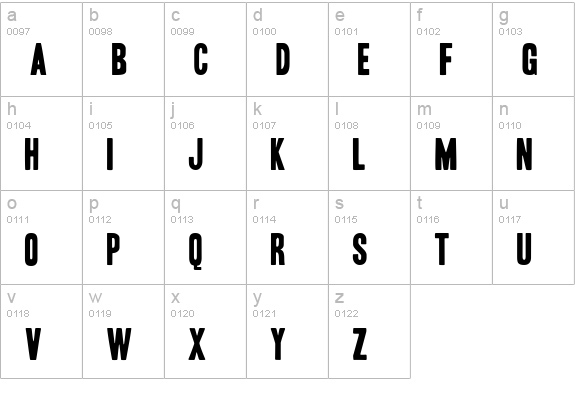
Headline One HPLHS Font Details
Introducing Headline One HPLHS font, a captivating and versatile typeface that is perfect for grabbing attention and making a bold statement. With its meticulous construction and striking design, this font is sure to elevate any project to new heights of visual appeal. Headline One HPLHS font is characterized by its clean lines, sharp edges, and elegant curves, giving it a modern and sophisticated look. Whether you are designing a logo, creating eye-catching headlines, or crafting impactful posters, this font will effortlessly convey professionalism and style. One of the best aspects of Headline One HPLHS font is that it is freely available to download at FontsMarket.com. This means that you can easily access this impressive font without any cost or hassle. The freedom to utilize such a high-quality typeface without breaking the bank is a game-changer for designers, students, and professionals alike. With a wide range of weights and styles, Headline One HPLHS font offers endless possibilities for customization and creativity. From bold and impactful to sleek and refined, this font can adapt to any design concept or aesthetic, making it a valuable asset in any designer's toolkit. So, whether you are looking to make a memorable impression, enhance your brand identity, or simply add a touch of elegance to your project, Headline One HPLHS font is the perfect choice. Download it for free at FontsMarket.com and unlock the potential to create stunning visuals that will captivate your audience.